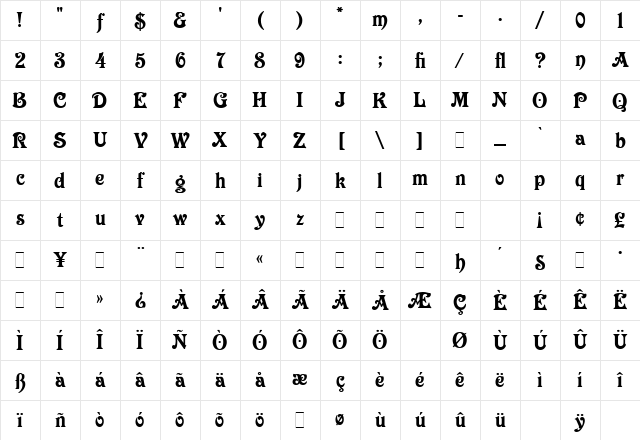
Complete Victorian LET Plain glyph index. Displaying only characters natively supported by Victorian LET Plain font.
Victorian LET is a composed and adaptable typeface that performs quietly and consistently across a wide range of design contexts.